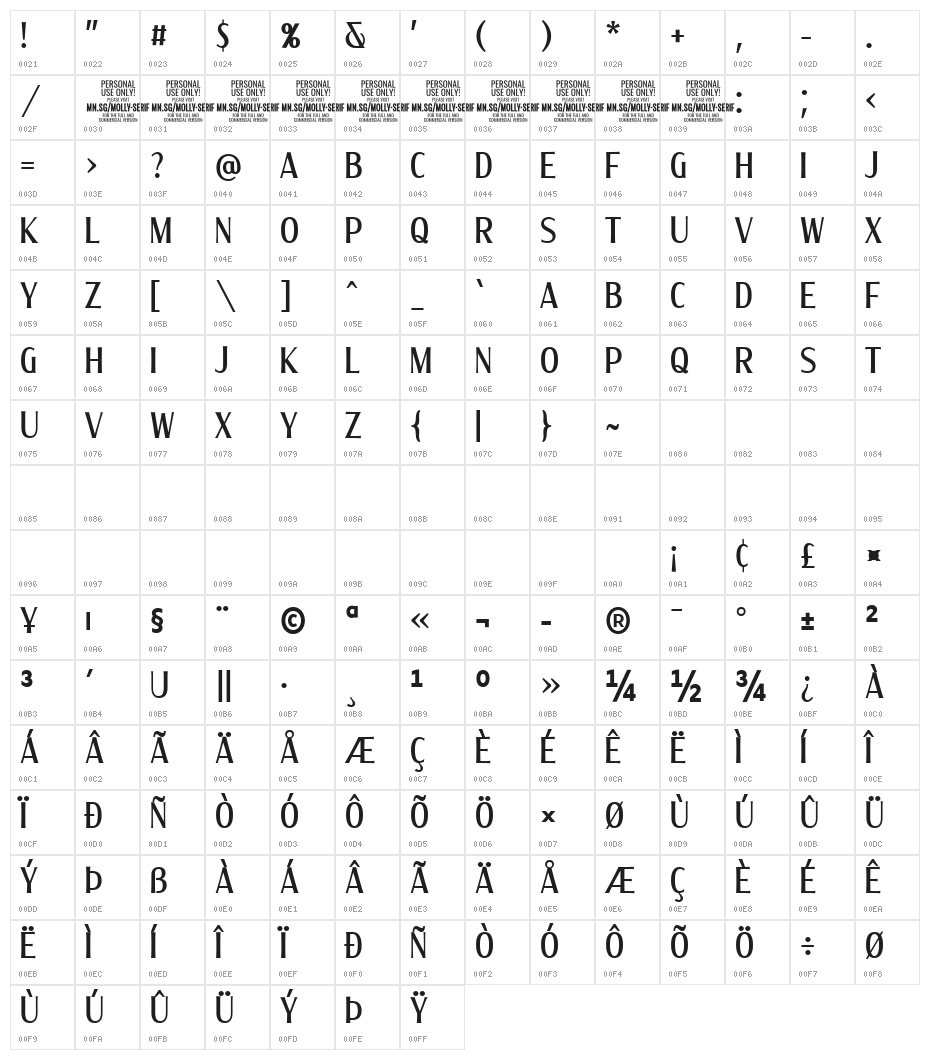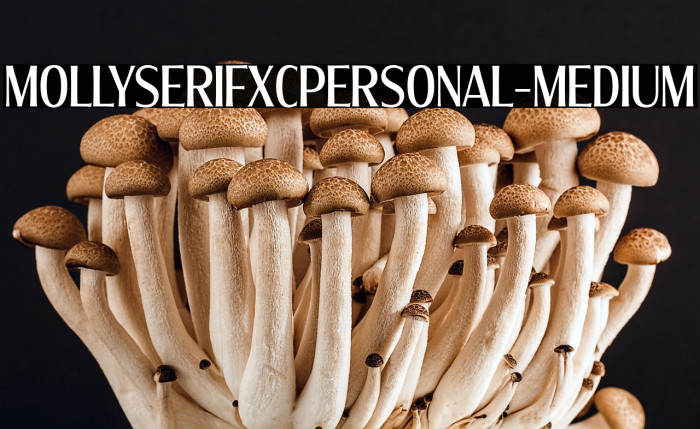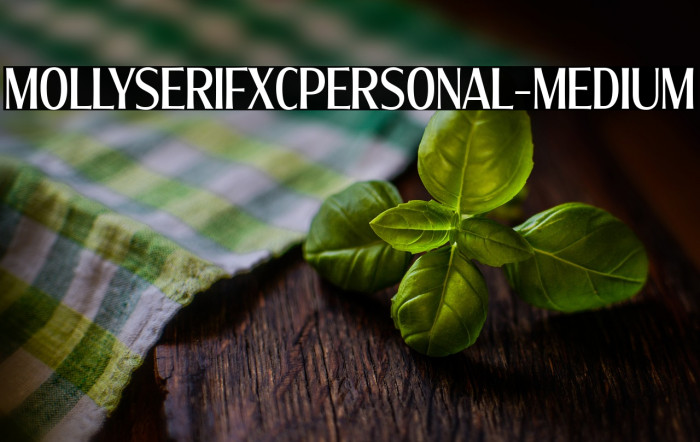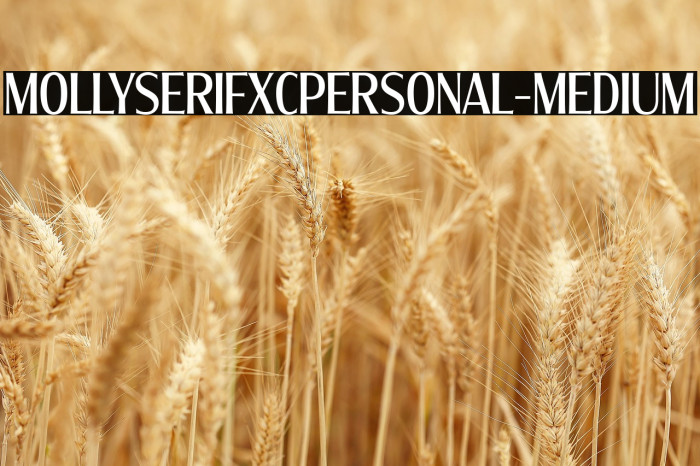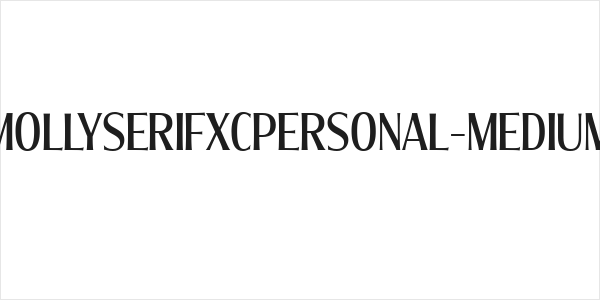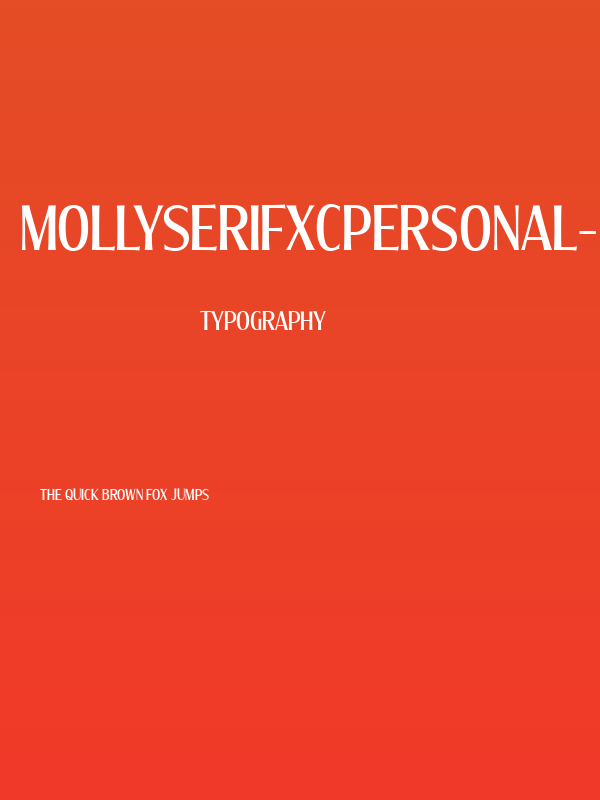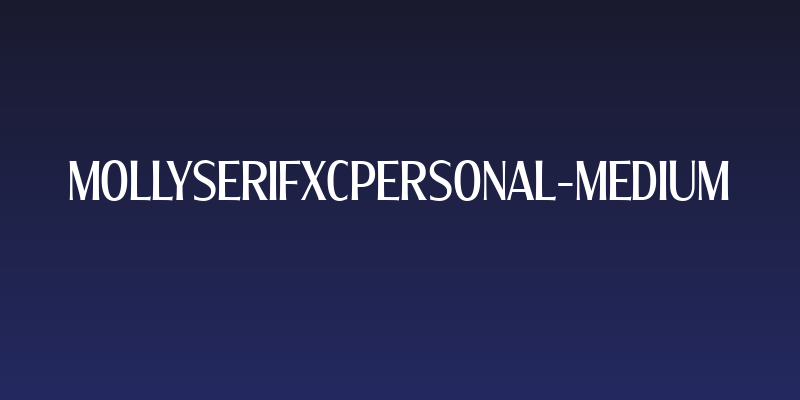
MollySerifXCPERSONAL-Medium Font
MollySerifXCPERSONAL-Medium Description
This font features a distinctive serif style with elegant, elongated strokes and a slightly condensed appearance. The uppercase letters exhibit a classic yet modern flair, with sharp serifs and a balanced weight that gives each character a strong presence. The lowercase letters maintain a consistent style, complementing the uppercase with their refined curves and clean lines. The numerals are clear and legible, designed to match the overall aesthetic of the font. Special characters are thoughtfully crafted, ensuring they integrate seamlessly with the rest of the character set. This font's sophisticated design makes it suitable for a variety of applications where a touch of elegance is desired.
| Use Case | Headlines, Logos, Editorial design |
| Proposed Projects | Ideal for branding, editorial design, book covers, and high-end product packaging. |